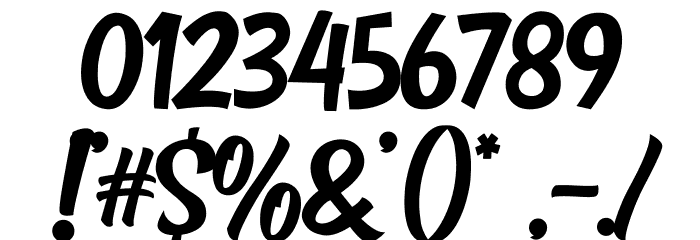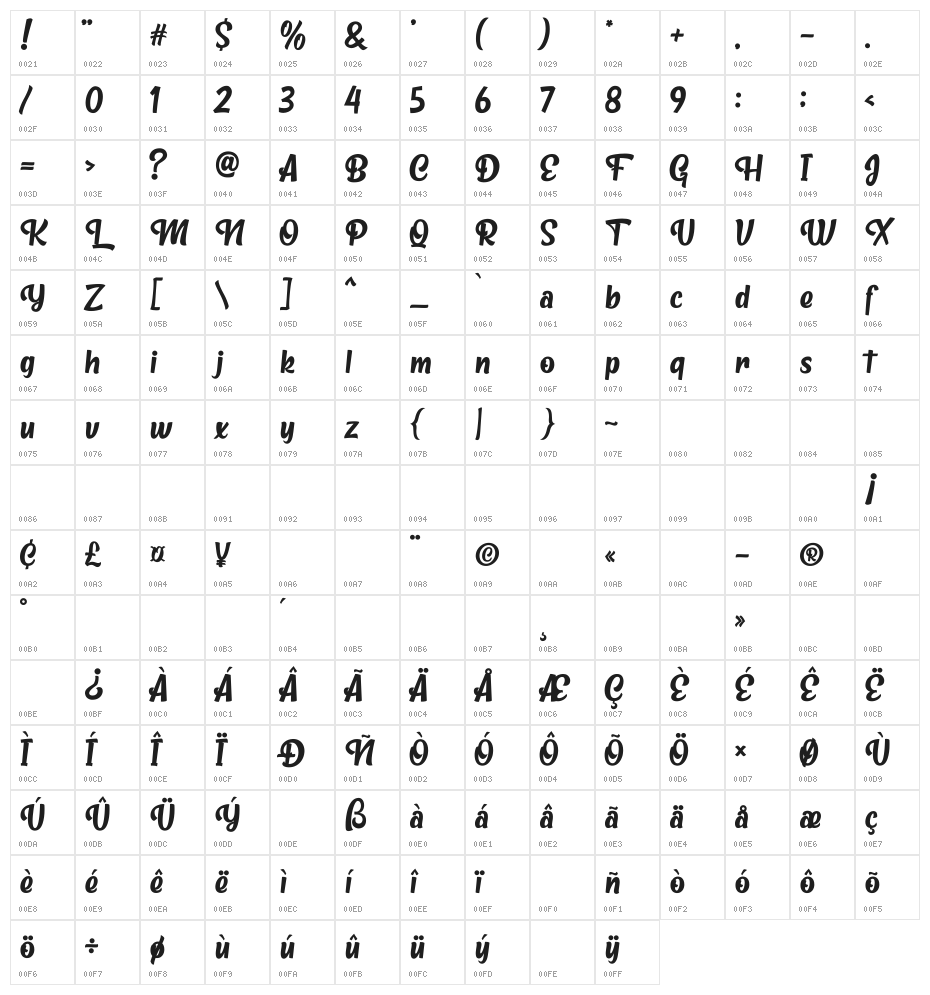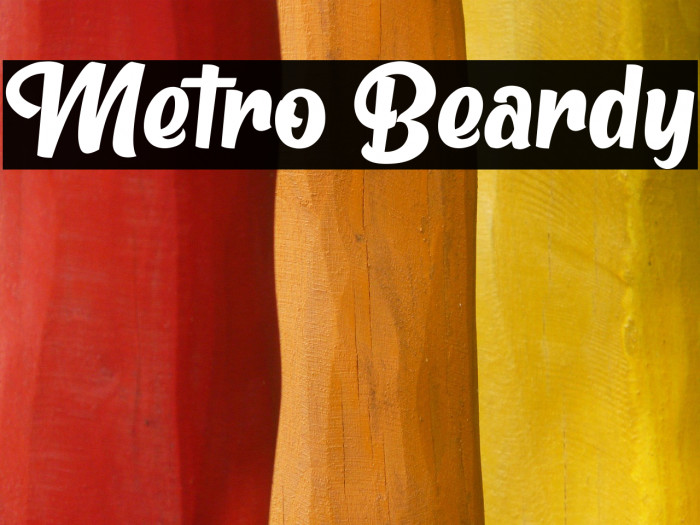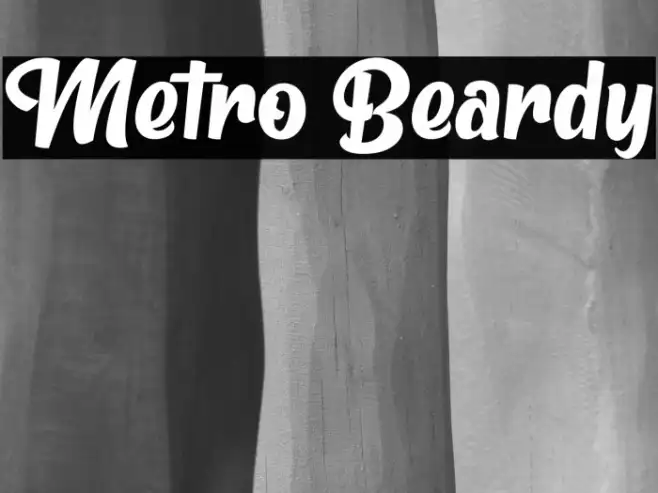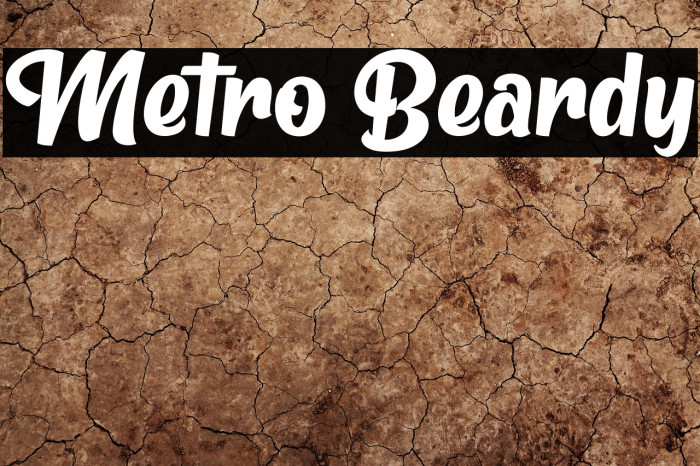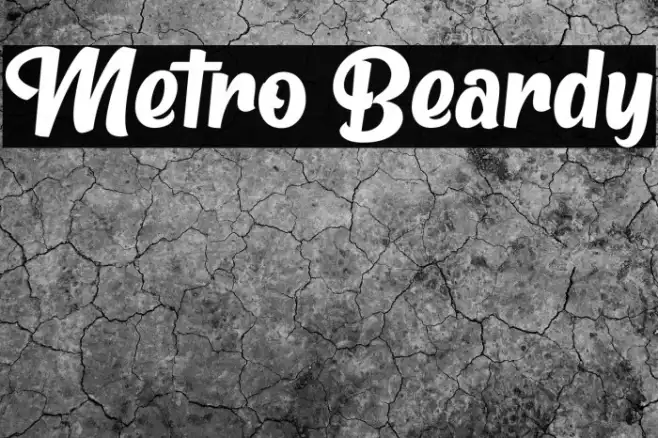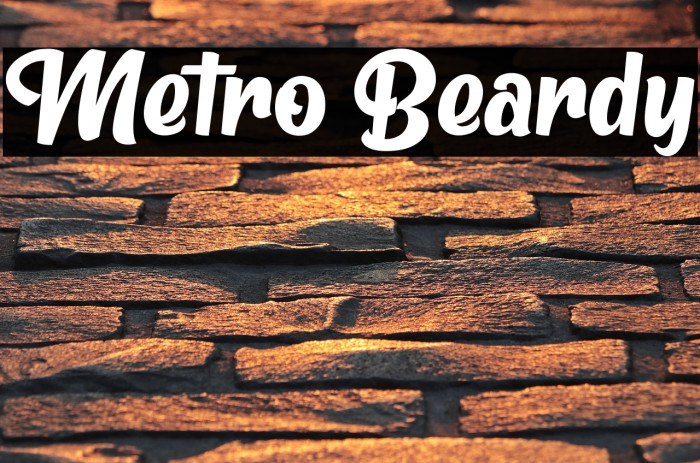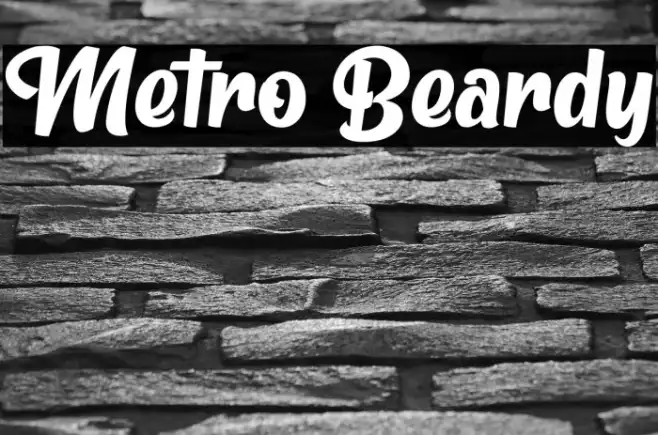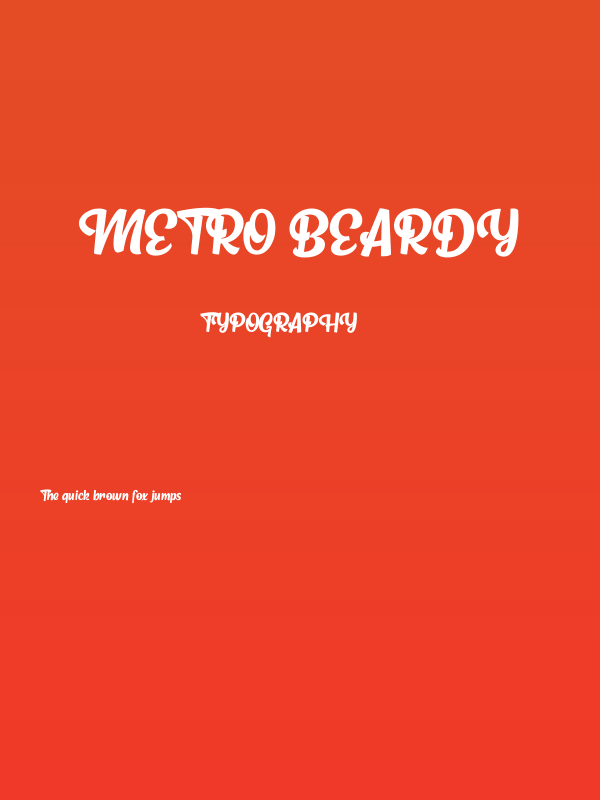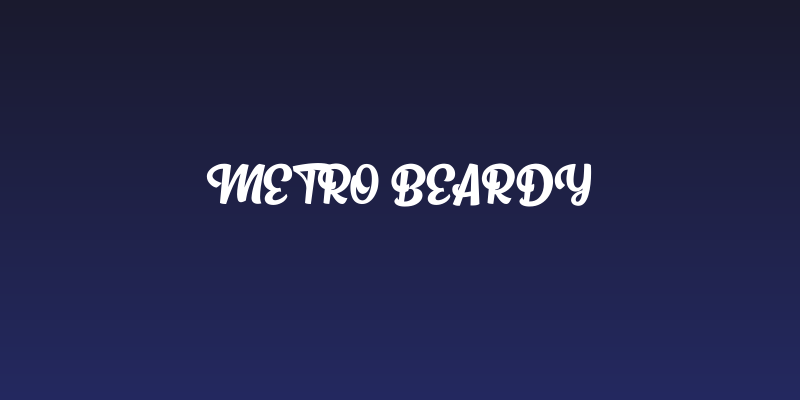
Metro Beardy Font
Metro Beardy Description
This font features a bold and playful script style with a dynamic flow and a sense of movement. The uppercase letters are characterized by their sweeping curves and slightly exaggerated serifs, giving them a lively and energetic appearance. The lowercase letters maintain a consistent thickness, contributing to a harmonious and cohesive look. The numerals are bold and rounded, matching the overall playful aesthetic. Special characters are designed with the same attention to detail, ensuring they blend seamlessly with the rest of the font. This font is ideal for projects that require a fun and engaging visual impact.